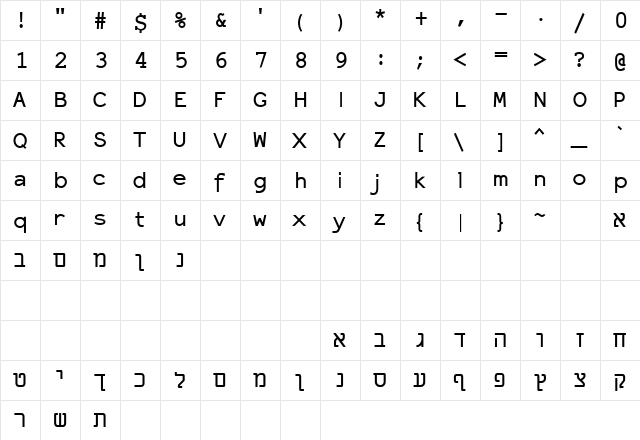
ElroNet Proportional Normal
Design Context for ElroNet Proportional Typeface
ElroNet Proportional is a composed and adaptable typeface that performs quietly and consistently across a wide range of design contexts.